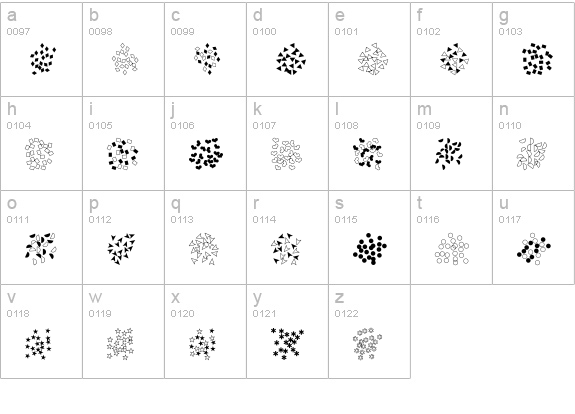
Confetti Font Details
Confetti font is a playful and whimsical typeface that will bring a burst of fun to your designs. With its scattered dots and cheerful aesthetic, this font is perfect for invitations, greeting cards, party decorations, and more. The Confetti font is free to download at FontsMarket.com, where you can easily add this delightful typeface to your collection. Let your creativity shine with Confetti font and add a touch of celebration to your projects!